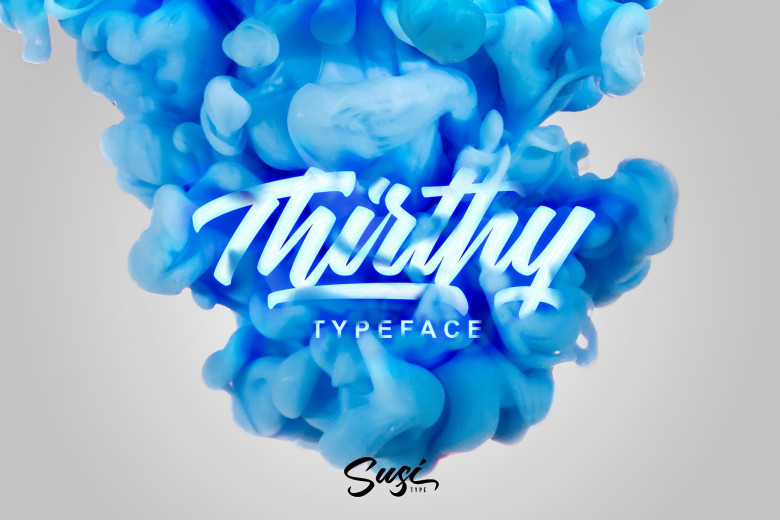
Thirthy Typeface
Introducing Thirthy Font, it is was designed and shares by SusiType. Thirthy – A bold handwritten typeface that will very suitable for any projects of yours. Perfect for display purposes like flyer, logotype, header, signage, etc. Works well on both modern and vintage style.